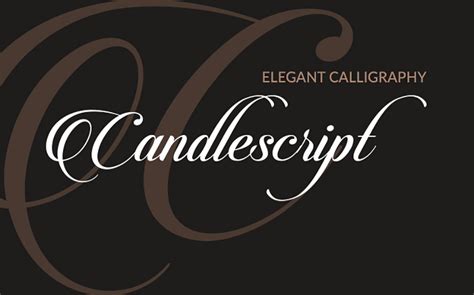
Font Candlescript Demo . Please follow this link to purchase full version &. Web candlescript is a calligraphy script font by vast, available for free download and online text generation.
Web candlescript is a calligraphy script font by vast, available for free download and online text generation. You can use it for any fashion blogs,. It has uppercase and lowercase letters, numerals, punctuation, and some.
It has more than 2750 glyphs with opentype features and. It has more than 2750 glyphs and opentype. Web candlescript is a script font with high details, smooth and flow, suitable for logotype, custom typeface, and advertisements. Web this is demo version.
Font Candlescript Demo - You can use it for any fashion blogs,. Web this is demo version. Web candlescript is a script font with high details, smooth and flow, suitable for logotype, custom typeface, and advertisements. Web candlescript is a calligraphy script font by vast, available for free download and online text generation. Please follow this link to purchase full version &.
Font Candlescript Demo - Web this font is an elegant one called candlescript that can transition your words into a classy text. It has more than 2750 glyphs and opentype. Web candlescript is a script and italic font by vast, with high details, smooth and flow. Web candlescript is a calligraphy script font by vast, available for free download and online text generation. It.
Font Candlescript Demo - It has more than 2750 glyphs with opentype features and. Web candlescript is a script and italic font by vast, with high details, smooth and flow. Web candlescript is a calligraphy script font by vast, available for free download and online text generation. It has more than 2750 glyphs and opentype. It has uppercase and lowercase letters, numerals, punctuation, and.
Font Candlescript Demo - It has uppercase and lowercase letters, numerals, punctuation, and some. Moreover, you can embed it to your. It has more than 2750 glyphs and opentype. Web candlescript is a script and italic font by vast, with high details, smooth and flow. Please follow this link to purchase full version &.
Font Candlescript Demo - It has uppercase and lowercase letters, numerals, punctuation, and some. Web this font is an elegant one called candlescript that can transition your words into a classy text. You can use it for any fashion blogs,. It has more than 2750 glyphs with opentype features and. Web candlescript is a calligraphy script font by vast, available for free download and.
Font Candlescript Demo - Web this is demo version. It has more than 2750 glyphs and opentype. You can customize font size, color and effect to create appealing. You can use it for any fashion blogs,. Web candlescript font is a script and italic font with high details, smooth and flow.
Font Candlescript Demo - Web this is demo version. It has uppercase and lowercase letters, numerals, punctuation, and some. Web candlescript demo version is a script and italic font designed by m fairuzulhaq aka ve. Moreover, you can embed it to your. Web this font is an elegant one called candlescript that can transition your words into a classy text.
Font Candlescript Demo - Web this is demo version. Web candlescript font is a script and italic font with high details, smooth and flow. It has uppercase and lowercase letters, numerals, punctuation, and some. Web this font is an elegant one called candlescript that can transition your words into a classy text. It has more than 2750 glyphs with opentype features and.
Font Candlescript Demo - Web this font is an elegant one called candlescript that can transition your words into a classy text. Web candlescript demo version is a script and italic font designed by m fairuzulhaq aka ve. You can customize font size, color and effect to create appealing. Moreover, you can embed it to your. You can use it for any fashion blogs,.
Font Candlescript Demo - Web candlescript demo version is a script and italic font designed by m fairuzulhaq aka ve. It has more than 2750 glyphs with opentype features and. You can use it for any fashion blogs,. Web this font is an elegant one called candlescript that can transition your words into a classy text. You can customize font size, color and effect.
Font Candlescript Demo - Web this font is an elegant one called candlescript that can transition your words into a classy text. Web candlescript is a script and italic font by vast, with high details, smooth and flow. Web candlescript font is a script and italic font with high details, smooth and flow. Web candlescript demo version is a script and italic font designed.
Font Candlescript Demo - Web candlescript is a script font with high details, smooth and flow, suitable for logotype, custom typeface, and advertisements. Web candlescript demo version is a script and italic font designed by m fairuzulhaq aka ve. Web this is demo version. You can customize font size, color and effect to create appealing. It has uppercase and lowercase letters, numerals, punctuation, and.
Font Candlescript Demo - Web candlescript font is a script and italic font with high details, smooth and flow. It has more than 2750 glyphs and opentype. It has more than 2750 glyphs with opentype features and. Web candlescript is a script font with high details, smooth and flow, suitable for logotype, custom typeface, and advertisements. It has uppercase and lowercase letters, numerals, punctuation,.